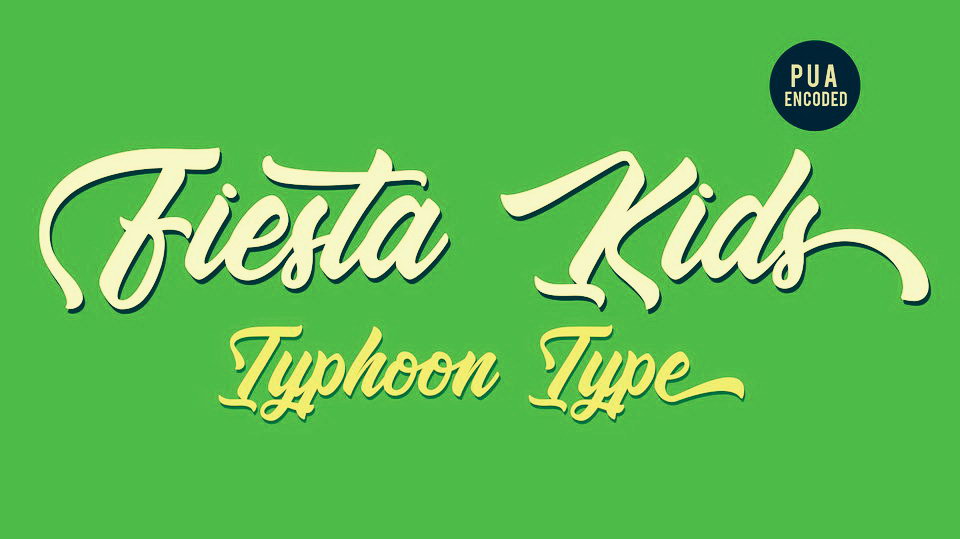
Download Fiesta Kids font – a beautiful modern calligraphy script. It comes with full set of glyphs, including multilingual support. Fiesta Kids font is perfect for logos, name tag, advertising, product packaging, clothing, social media & greeting cards.
Designer: TyphoonType